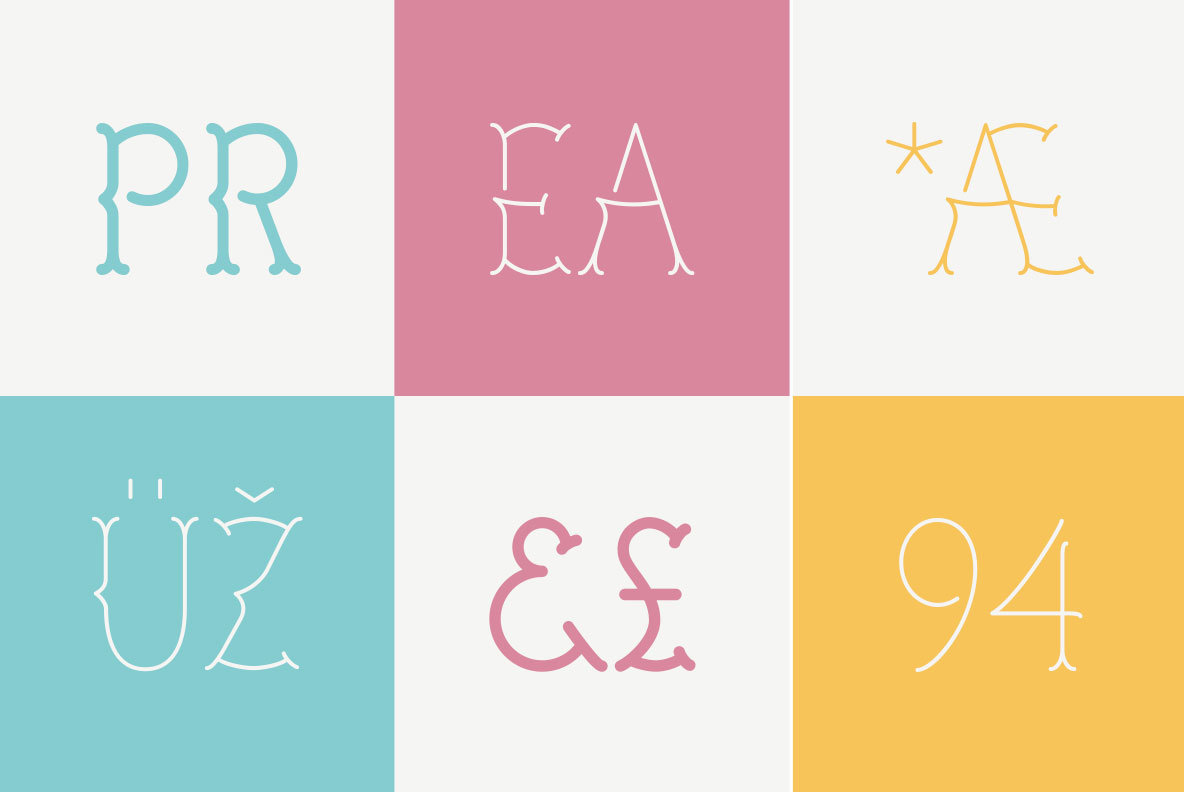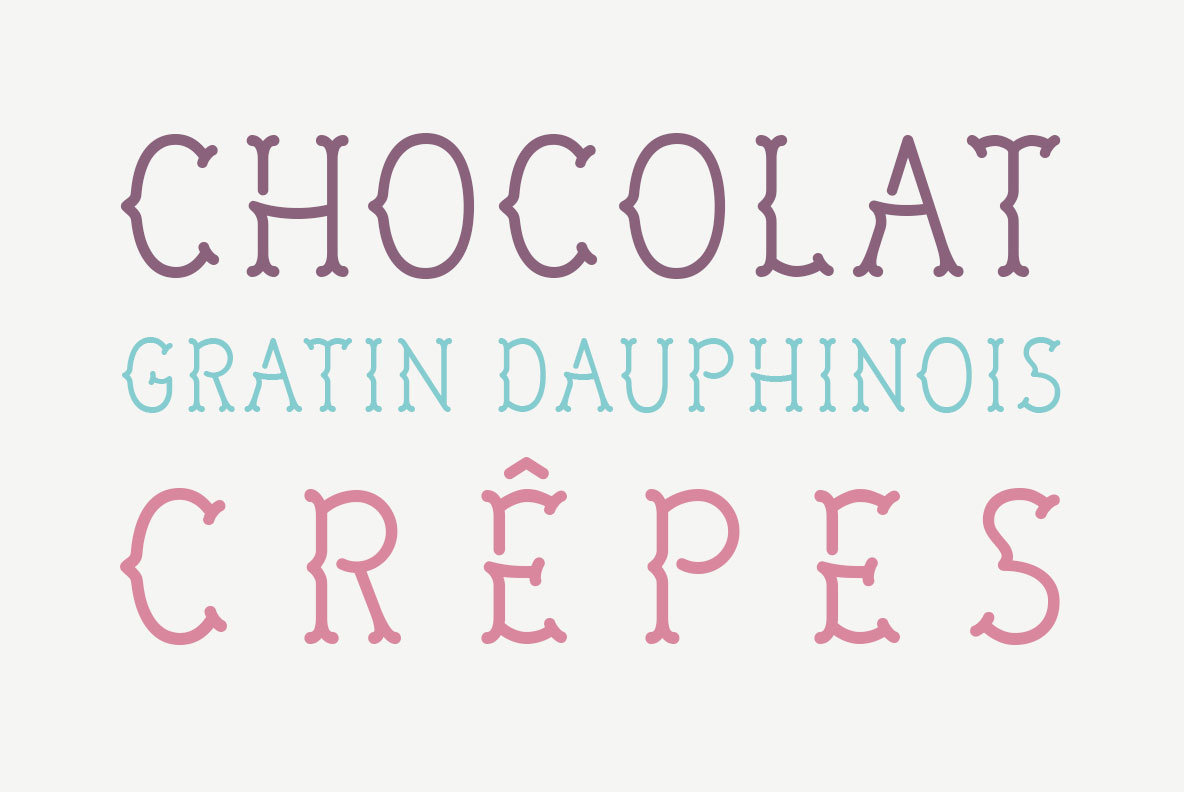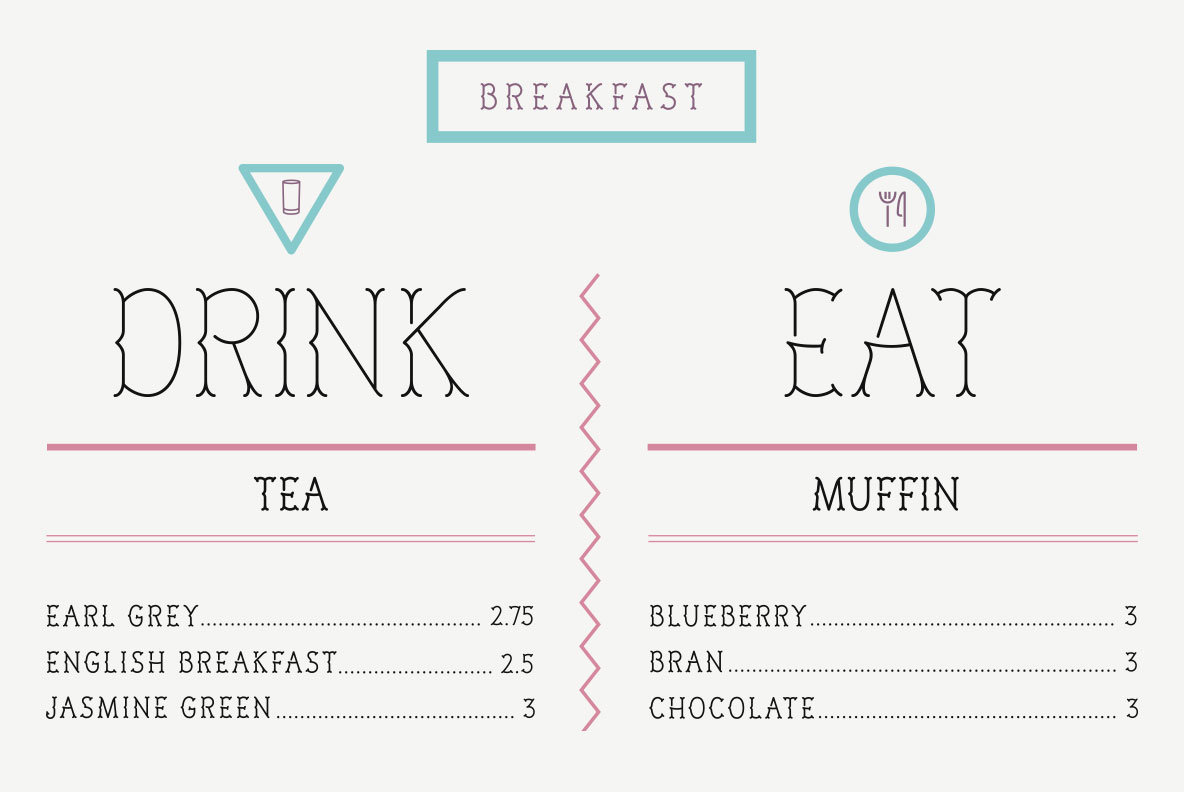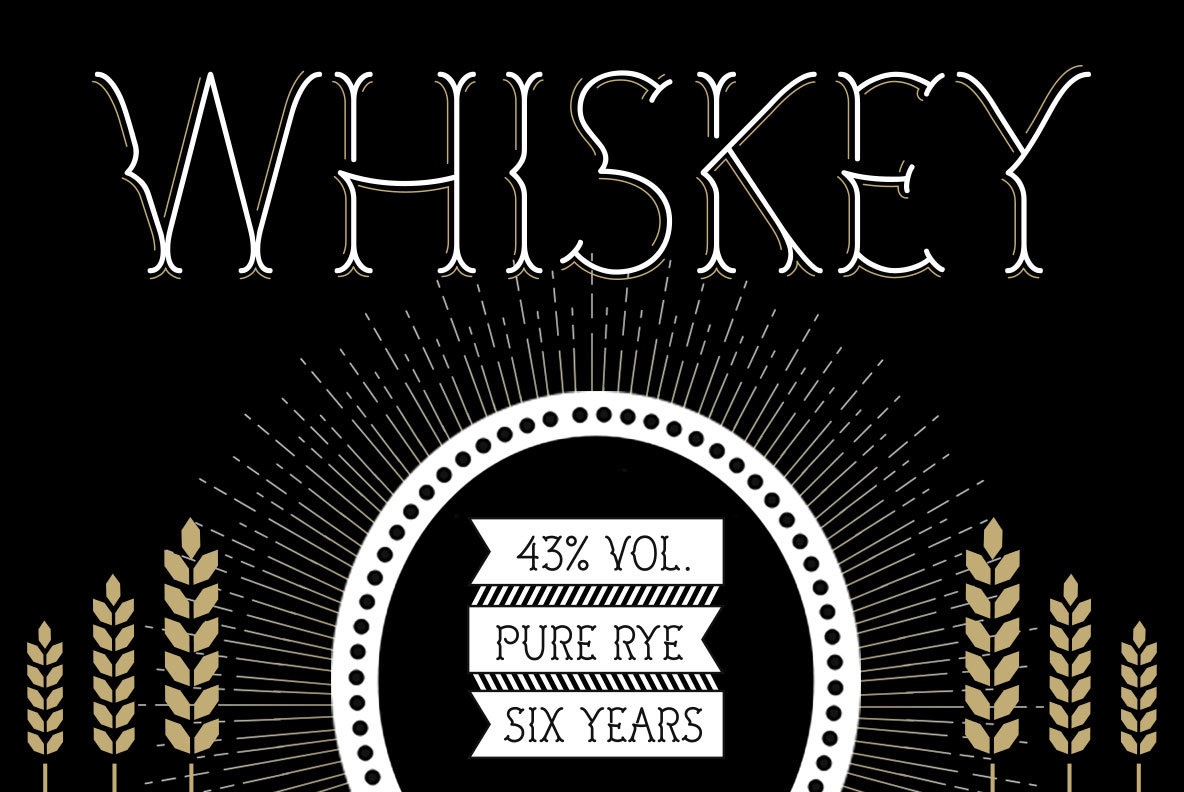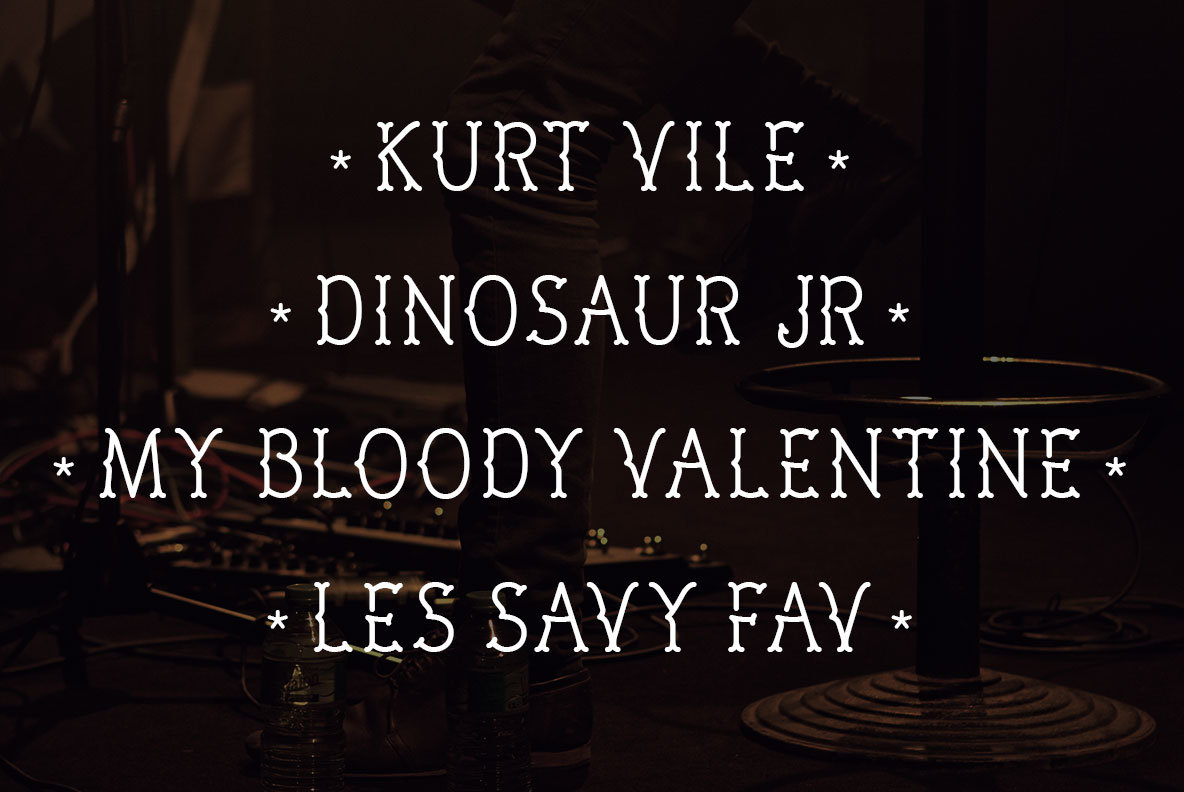
LU LU Font
LU LU
A mono-weight, bifurcated serif typeface in all caps. Based off of an old classic French biscuit logo, this distinctive vintage display typeface can also evoke edgier sentiments when set in a moodier context.